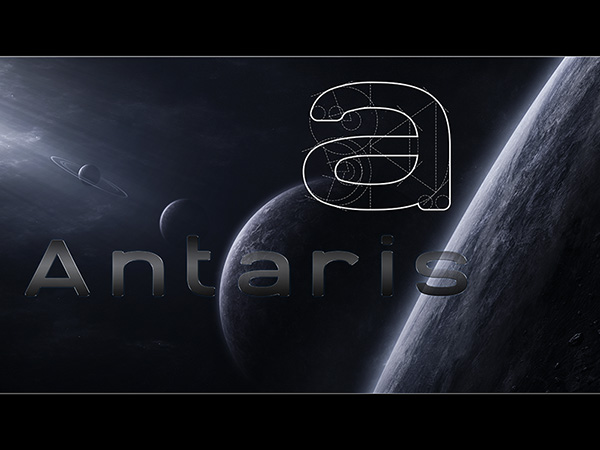
In a world where words are power, and expression is art, let your creativity take flight with Antaris Font, a sans serif masterpiece that strikes a chord with its strength, cleanliness, and impeccable construction. This font is a symphony of elegance, designed to captivate and communicate, much like the celestial constellation that bears its name.
With Antaris, smaller sizes are no longer a hurdle, as its legibility shines even in the most compact spaces, be it print or digital. Its crisp lines and balanced proportions ensure clarity and engagement, making it the perfect choice for those seeking impact without compromising readability. But Antaris doesn't stop at small victories. Its versatility extends to the realm of displays and headlines, where it commands attention and makes a statement. Whether you're crafting an impactful logo, designing a captivating website, or creating eye-catching social media posts, Antaris rises to the occasion, leaving an indelible mark on your audience.
But wait, there's more! Discover the hidden gem of Antaris' enigmatic stencil variation, Antaris Stencil. This font takes the allure of the original and adds a touch of intrigue and mystique, creating an aura of secrecy and sophistication that's perfect for projects demanding a touch of allure. With Antaris Stencil, your designs will exude confidence and leave a lasting impression, much like a secret message waiting to be unraveled.
As you embark on your creative journey with Antaris, you'll find yourself drawn into its vortex of possibility. It's a font that sparks imagination, fueling your passion for expression and empowering you to craft designs that resonate with your audience. Whether you're a seasoned designer or just starting to explore the world of typography, Antaris becomes your faithful companion, guiding you toward greatness.
Don't let mediocrity hold you back. Embrace the power of Antaris Font and watch your creative visions come to life. Every word carries weight, and with Antaris, your message will soar, captivating hearts and minds with its timeless beauty and unwavering strength. Welcome to the world of Antaris, where creativity knows no bounds.